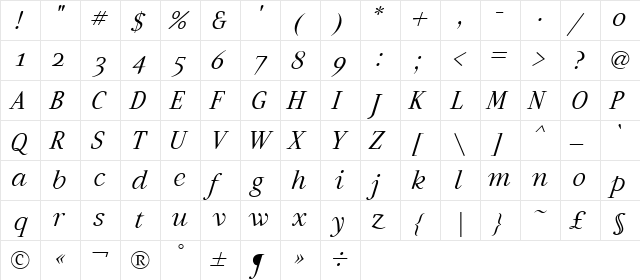
Artemius SN Light Italic Font Preview
| Foundry | Letterhead studio especially for ArtLebedev Group. Created by Yuri Gordon |
Design Context for Artemius SN Light Typeface
Artemius SN Light takes a measured approach to typography — its balanced proportions and neutral character make it a reliable workhorse for both digital and print work. The dynamic lean of this cut emphasises speed and emphasis in any layout. The delicate stroke weight brings airiness and refinement to layouts.
Pro Tip: Try Artemius SN Light for annotation and caption copy alongside an upright companion — the contrast in angle creates a dynamic but ordered typographic system.